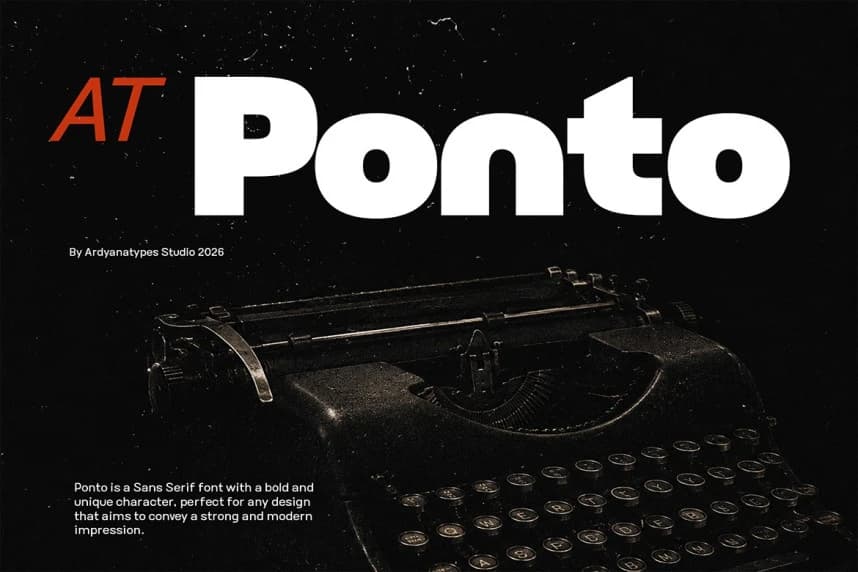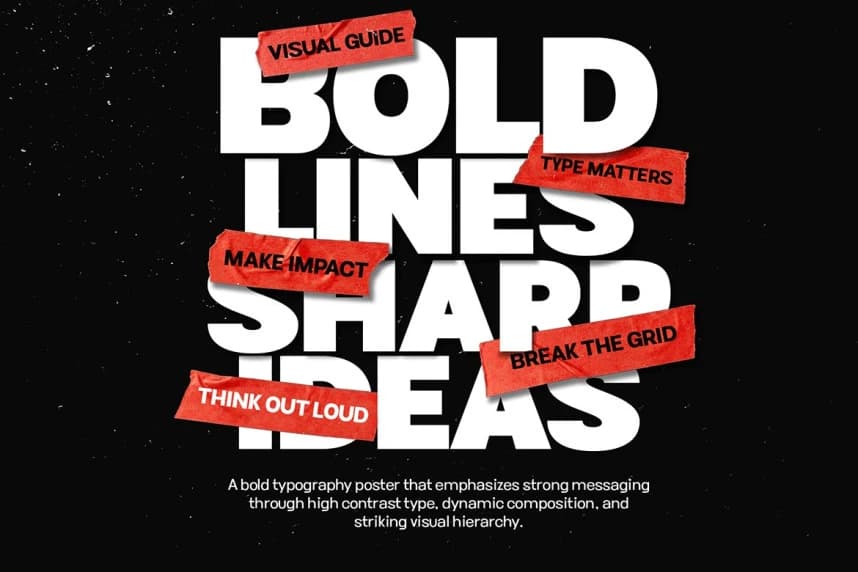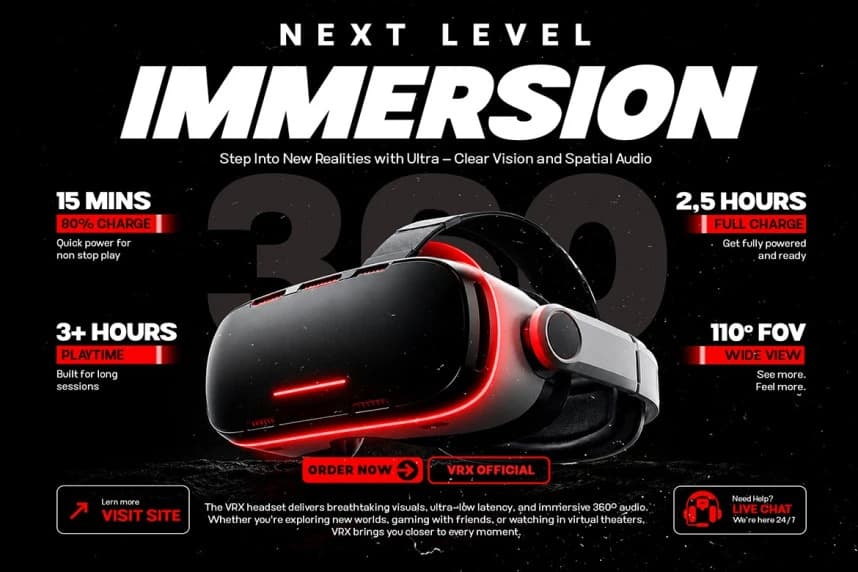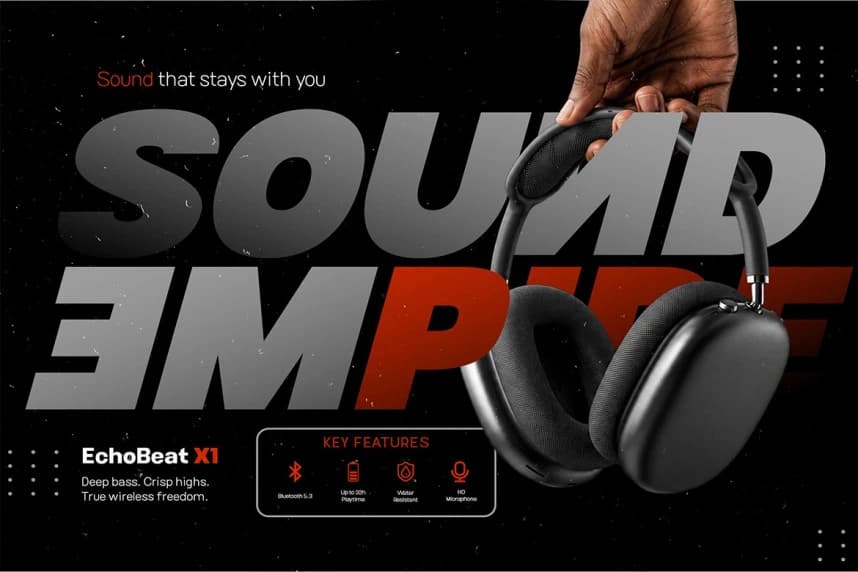
AT Ponto Font
AT Ponto Font is a modern sans serif family designed to deliver strong visual impact with a clean, confident, and energetic personality. Built with bold proportions, dynamic italics, and modern geometric structure